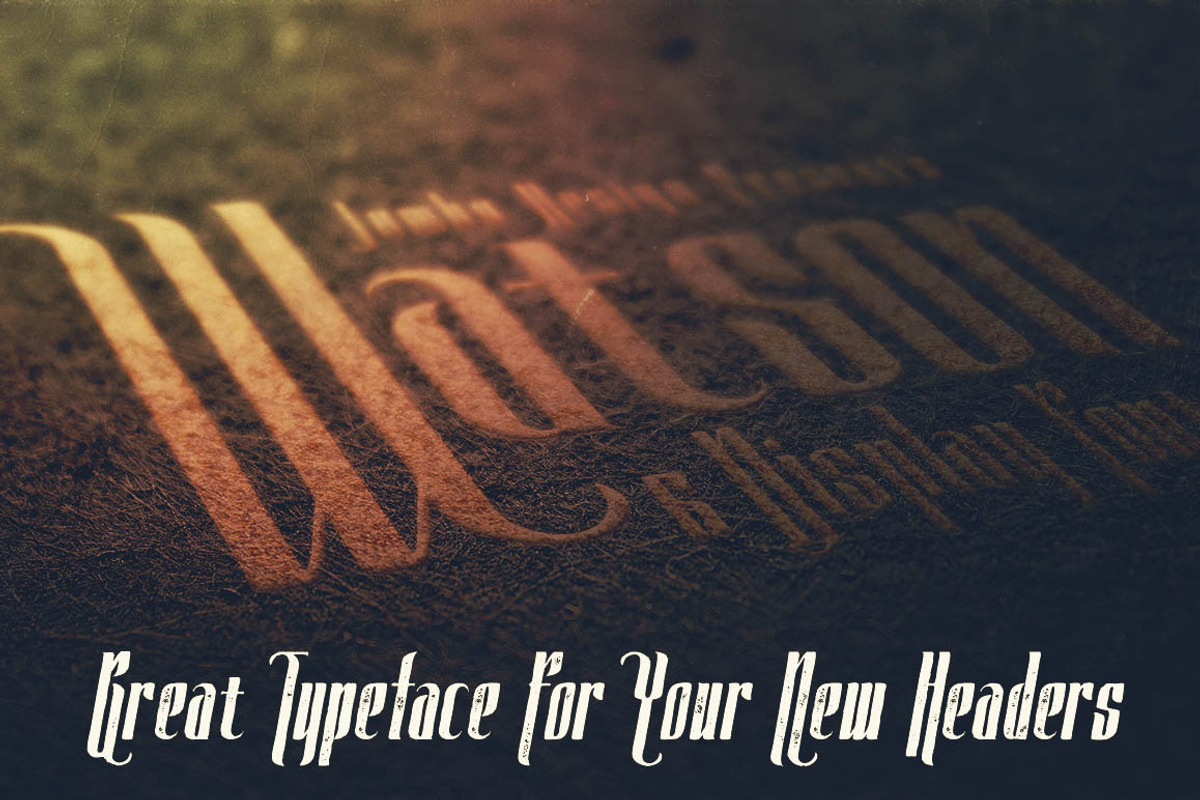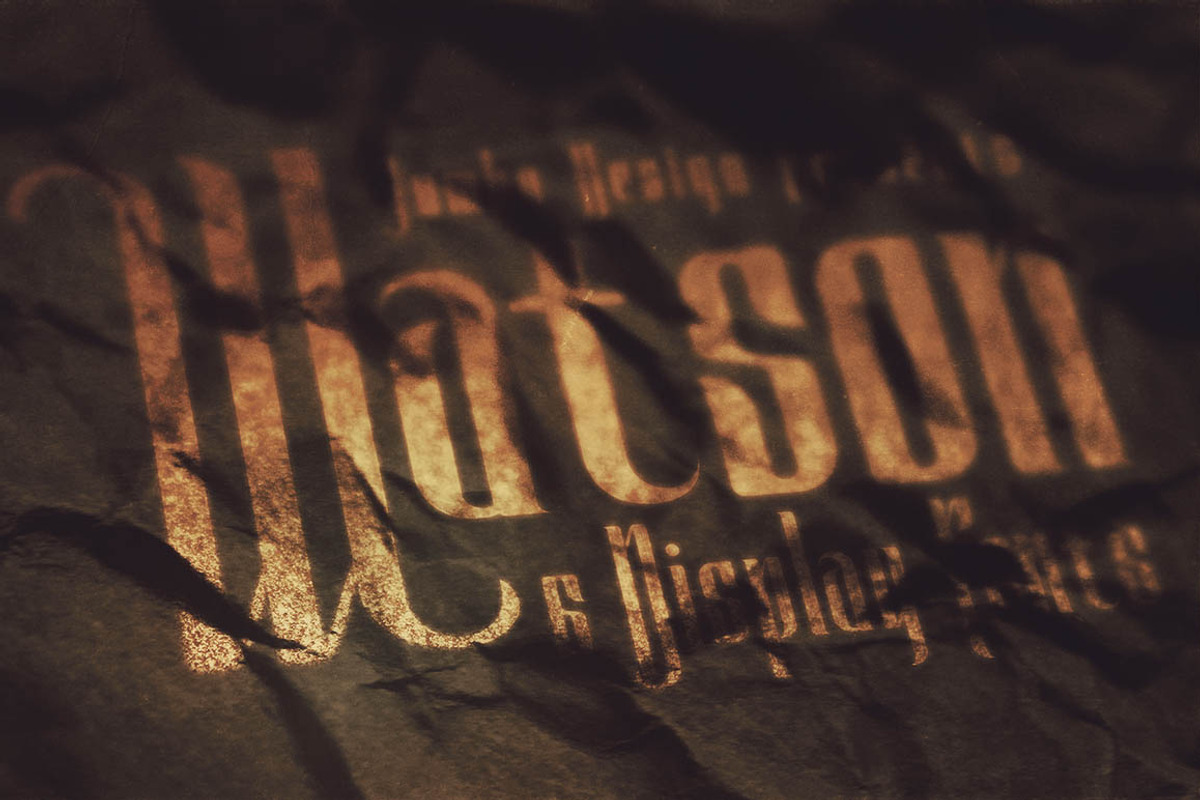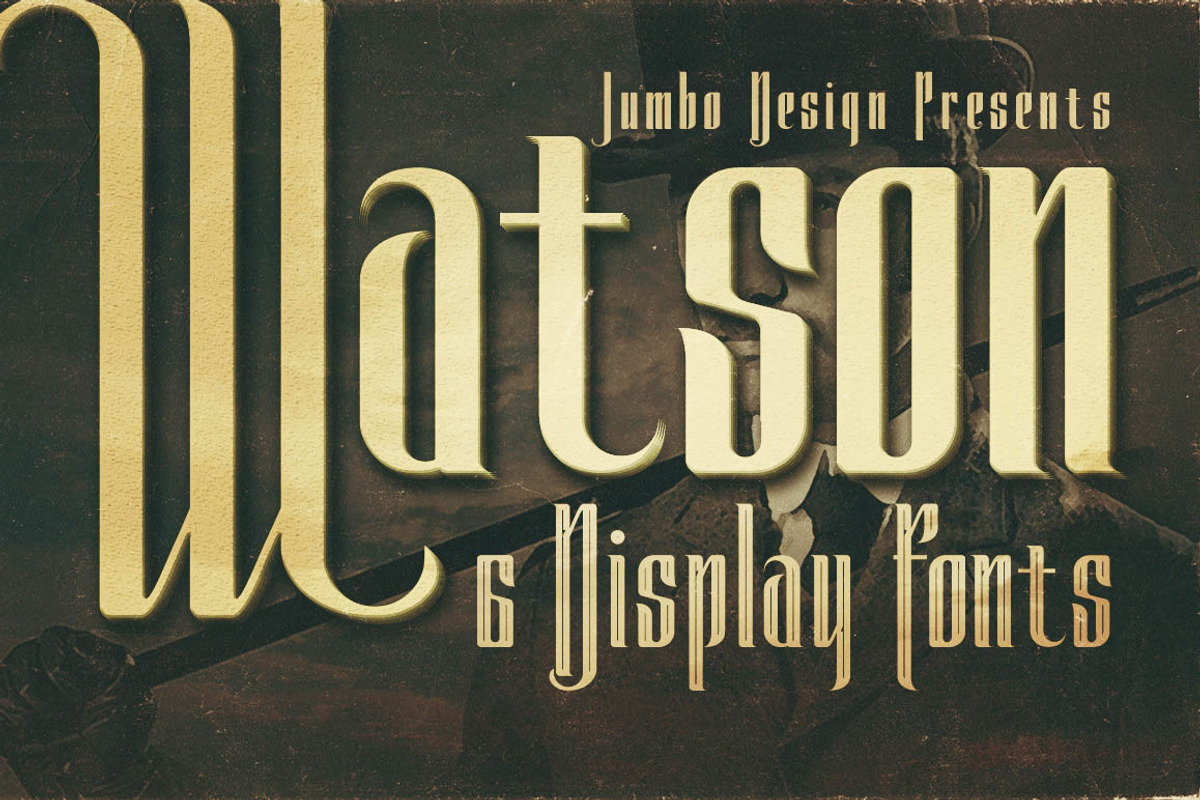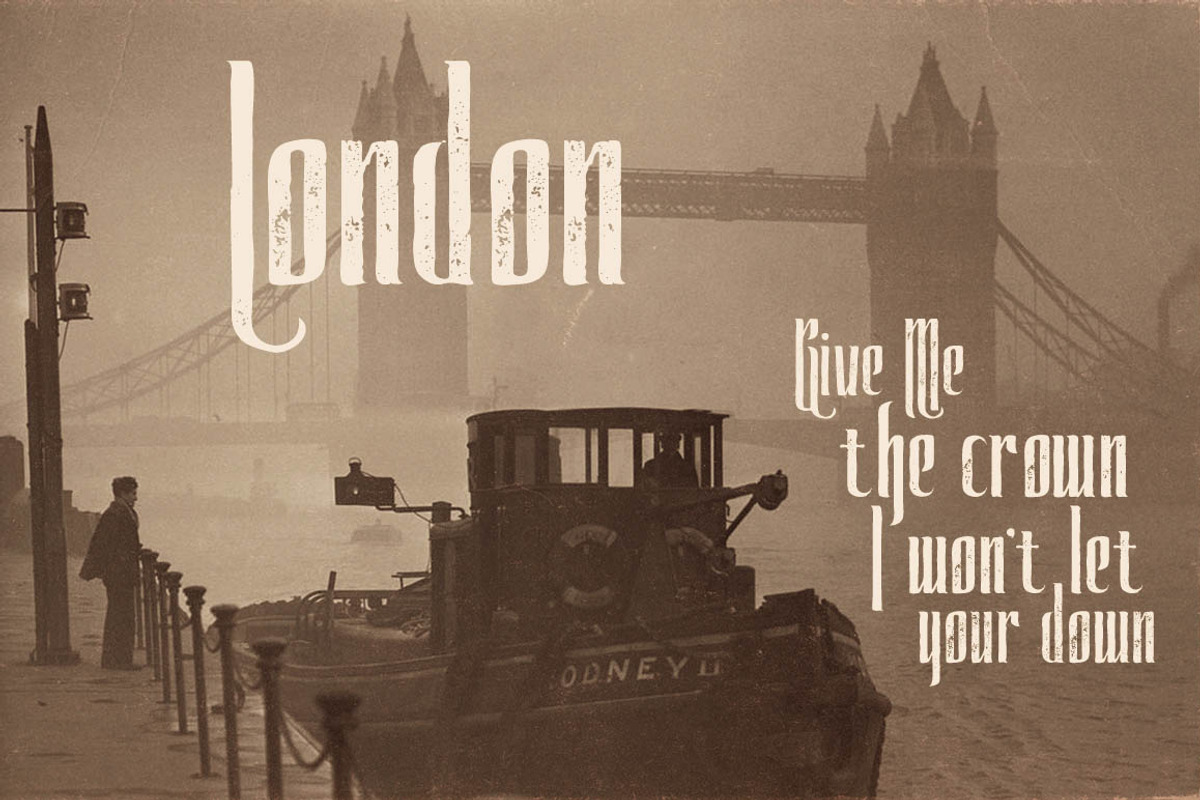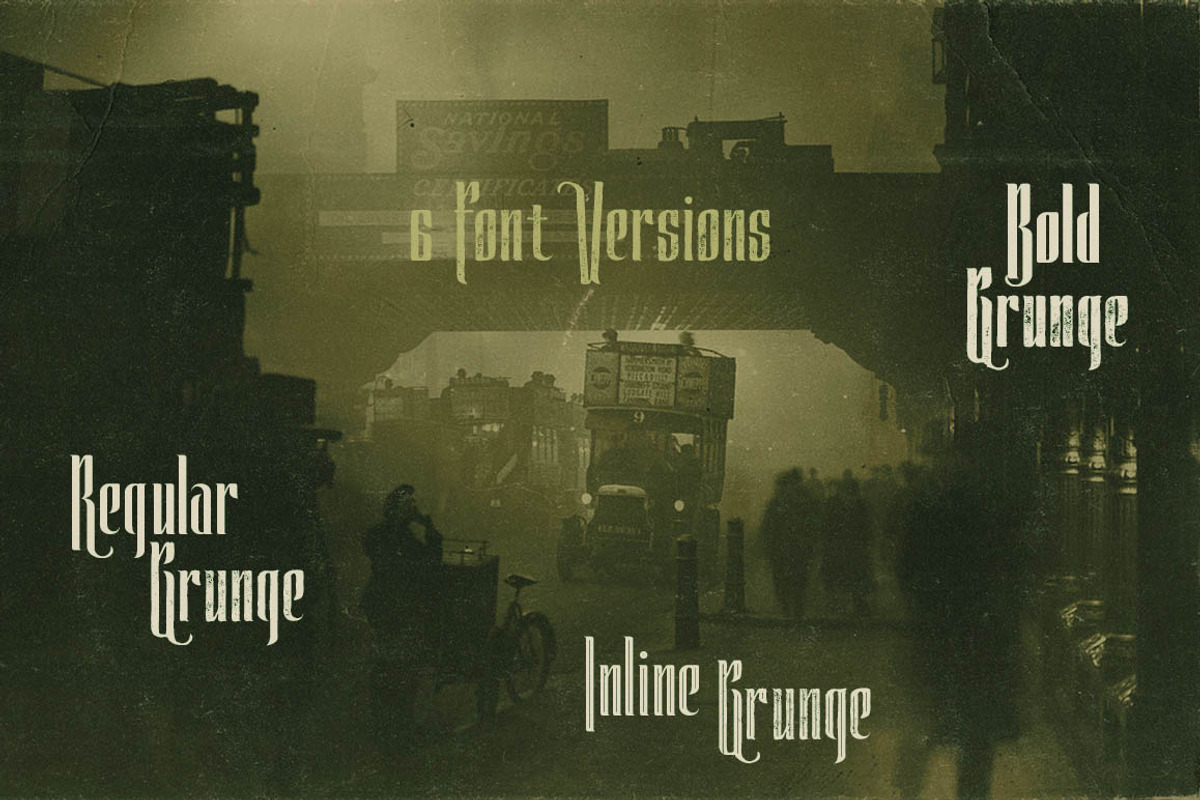
Watson - Vintage Display Font
Watson - Vintage Display Font by JumboDesign is a font selected for branding, posters, packaging, typography.
Why Watson - Vintage Display Font is worth a look
Watson - Vintage Display Font by JumboDesign fits naturally into Branding, posters, packaging, typography.